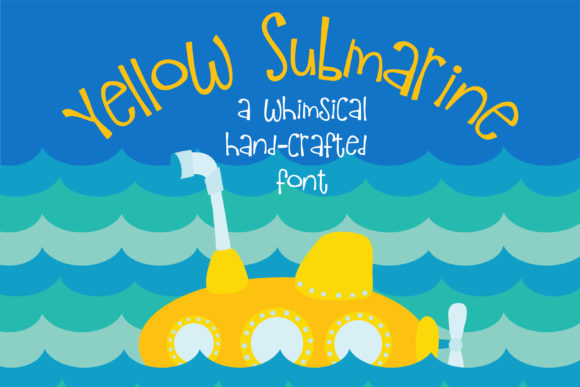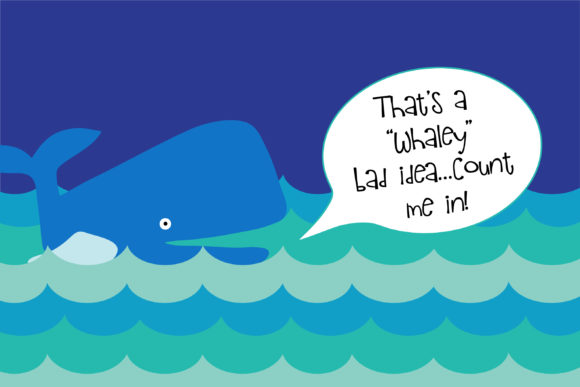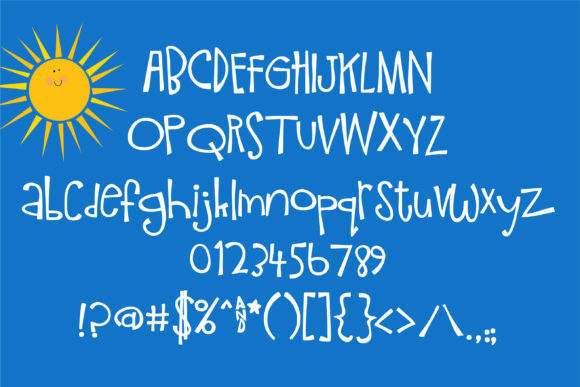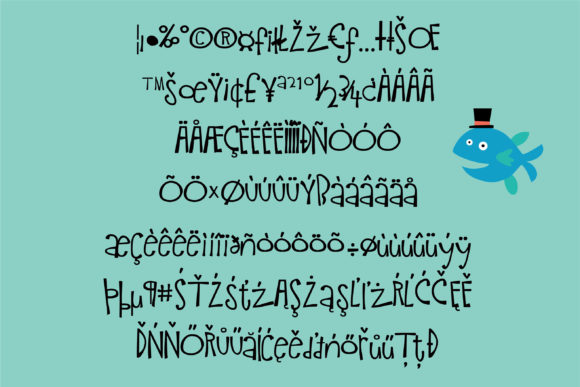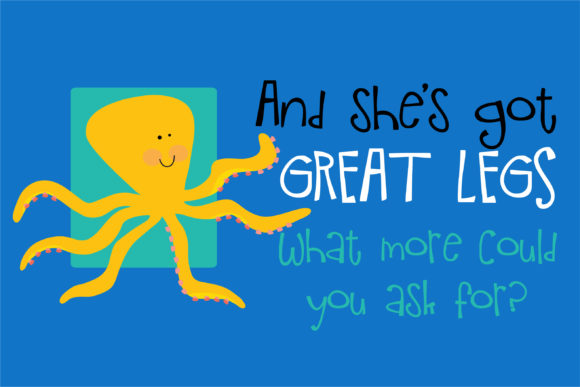
HomeScript FontsYellow Submarine Font Script Fonts Yellow Submarine Font FacebookXPinterestWhatsApp Yellow Submarine Font Poster 2 Yellow Submarine Font Poster 3 Yellow Submarine Font Poster 4 Yellow Submarine Font Poster 5 About Yellow Submarine Font This sans serif font is whimsical and child-like. DOWNLOAD ON CREATIVE FABRICAThis font is sold and delivered by Creative Fabrica. Font Canyon may earn a commission if you buy through this link. People also explored Male Canvas Red Bella Canvas 3001 Mockup Simple Harmony Font The Quest Font Zricasa Font Lady Rose Font Mushroomies Font Christmas Halcyon Font Denibas Sunset Font Familyar 374 0 TagsYellow Submarine Font Previous articleBon Voyage Duo FontNext articleEnjoy Today Font LEAVE A REPLY Cancel reply Comment: Please enter your comment! Name:* Please enter your name here Email:* You have entered an incorrect email address! Please enter your email address here Website: Save my name, email, and website in this browser for the next time I comment. Personal Use Free Strings Personal Use Free Read more about this font Cuttering Personal Use Free Read more about this font Sushi Day Personal Use Free Read more about this font Hallo Betty Personal Use Free Read more about this font BLOG Exploring Font Trends Shaping Communication in the Digital Era Fonts, like all design elements, are subject to trends. They play a crucial role in communicating a brand's personality,... 5 Fonts That Will Dominate Design Trends in 2026 Modern Sans-Serif Fonts That Brands Love in 2025 How to Install and Use Fonts on Windows, macOS, and Web Projects